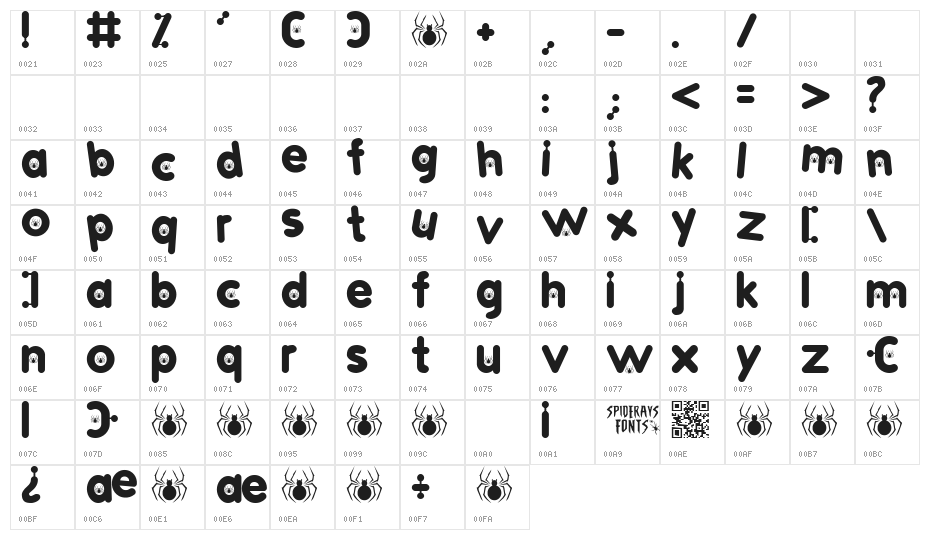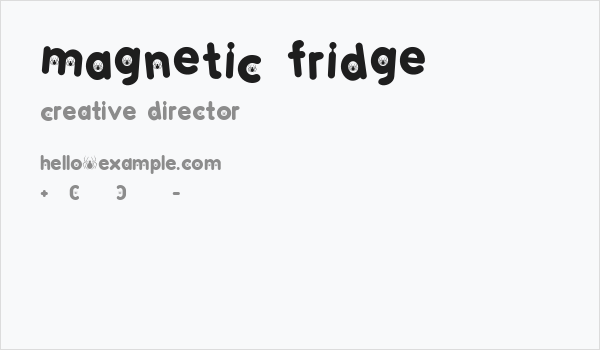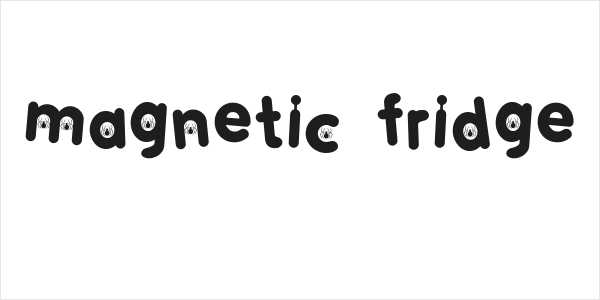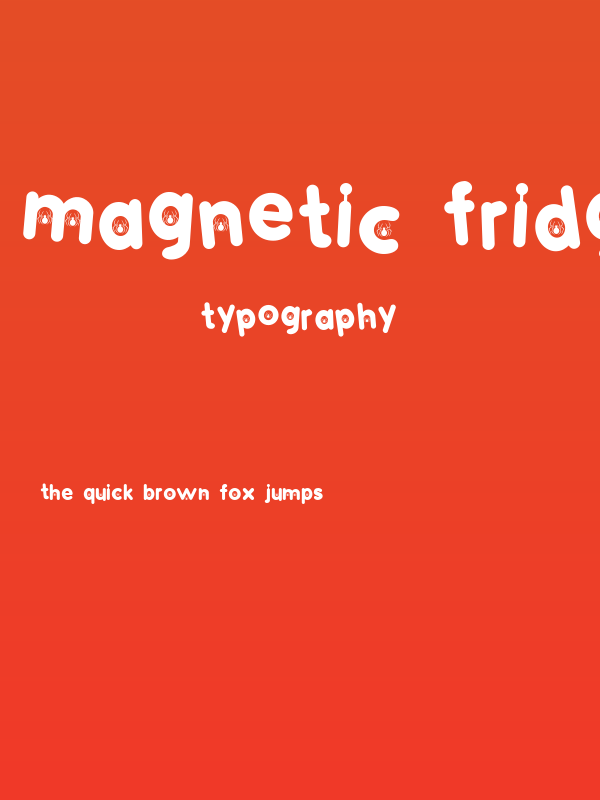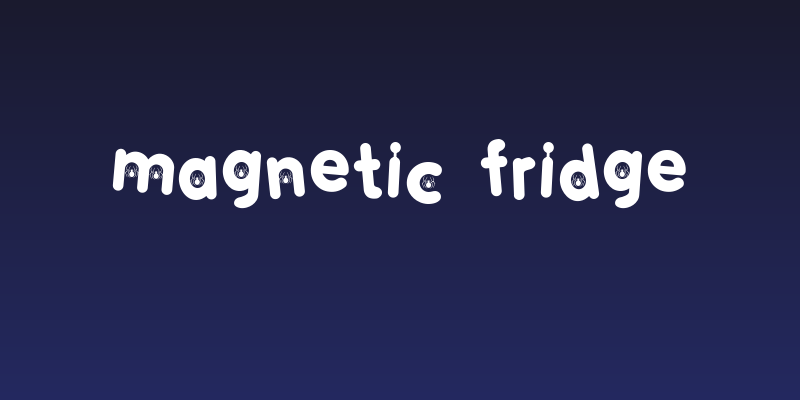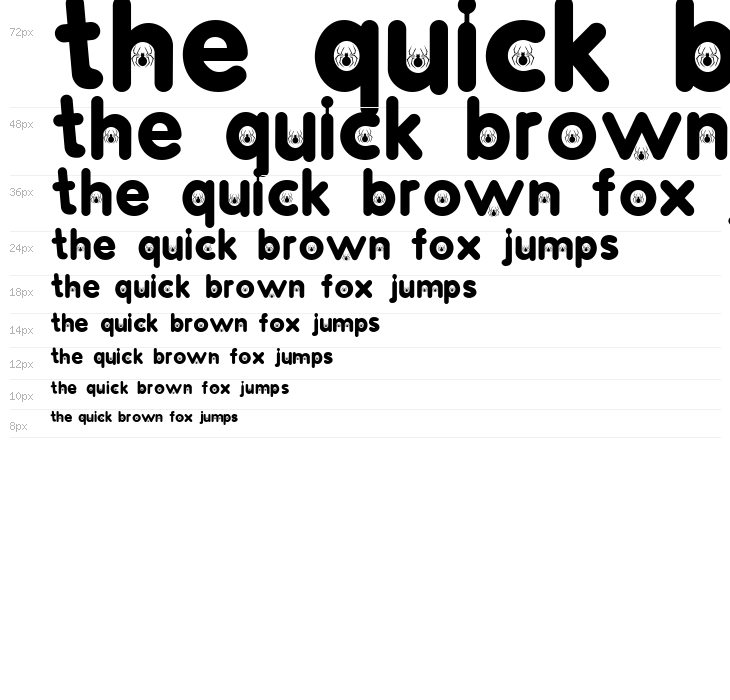
MAGNETIC FRIDGE Font
MAGNETIC FRIDGE Description
This playful and quirky font features rounded, bold characters with a unique twist. Each letter is adorned with a small, eye-like design, adding a whimsical and slightly eerie touch. The font maintains a consistent thickness throughout, providing a uniform appearance. The lowercase letters are particularly distinctive, with their rounded forms and the eye motif creating a sense of curiosity and fun. The special characters, including a spider and other symbols, enhance the font's playful nature, making it ideal for creative and unconventional projects.
MAGNETIC FRIDGE
| Overall Style | Playful, Quirky |
| Proposed Projects | Ideal for Halloween-themed projects, children's books, playful branding, and creative posters. |